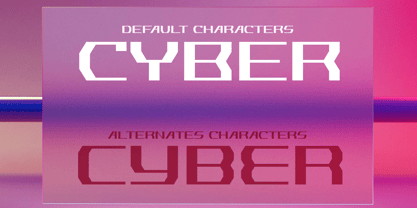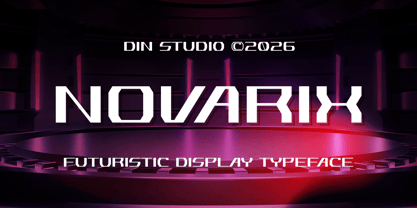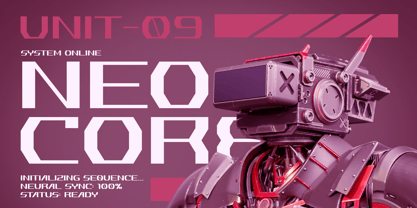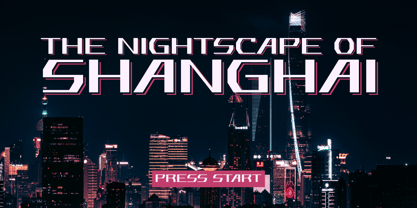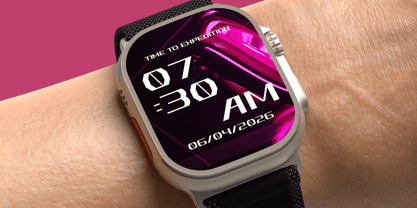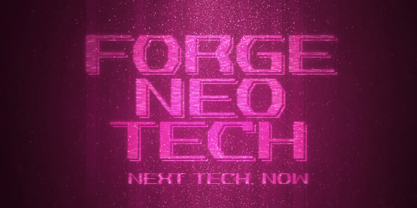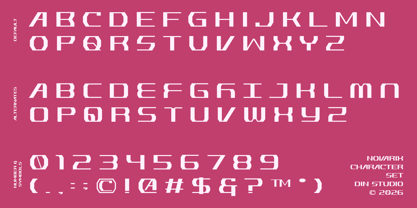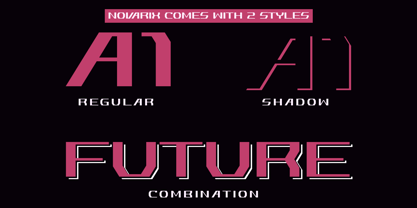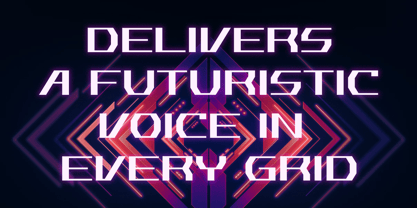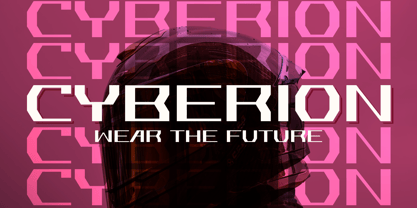
Novarix
by Din Studio
The Novarix Font Family was designed by Donis Miftahudin and published by Din Studio. Novarix contains 2 styles and family package options. More about this family
Novarix is a cutting-edge display font that brings a sleek futuristic aesthetic to modern design. Crafted entirely in uppercase, this typeface delivers a bold and structured visual identity while maintaining a refined, not-too-thick weight that keeps it clean and versatile. Its sharp corners and precise geometry create a high-tech appearance. The visible contrast enhances readability while adding depth. In addition, enjoy the features here.
Features:
• Alternates
• Multilingual Supports
• Numerals and Punctuations